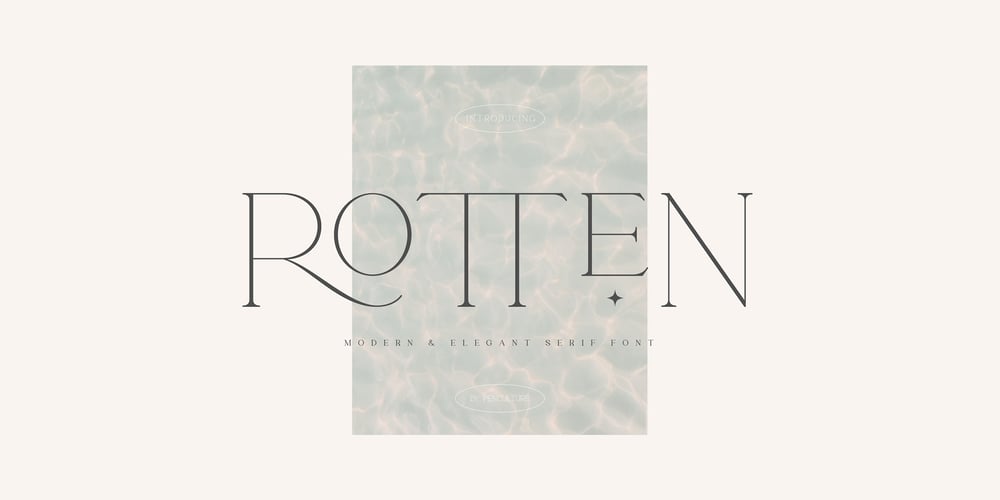
Rotten Font Family was designed by Revo Farsiky and published by Pen Culture. Rotten contains 1 styles and family package options. Rotten is modern and elegant serif font. This font bring modern minimalist and elegant concept, this font will be very suitable for branding needs, logo design, posters and much more. This font is equipped with ligatures and beautiful alternates, you can mix and match them very easily in your projects.I really hope you enjoy it – please do let me know what you think, comments & likes are always hugely welcomed and appreciated. More importantly, please don’t hesitate to drop me a message if you have any issues or queries.Thank you